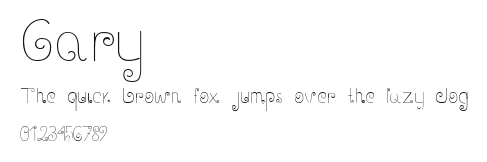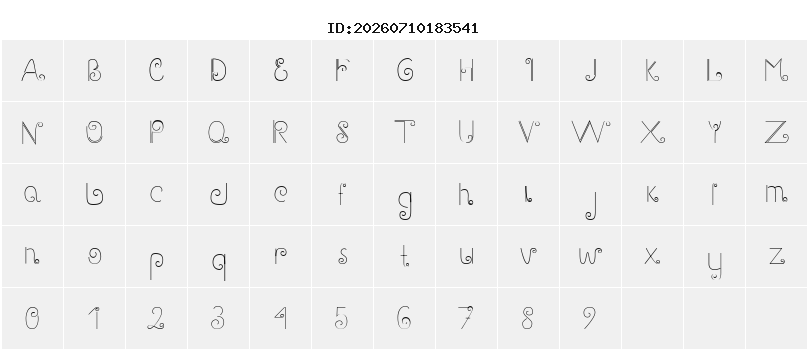
Gary Preview
• Font Name: Gary
• Font ID: PH,SibeleeLorena: Gary: 2014
• Full Font Name: Gary
• PostScript Name: Gary
• Character Count: 73
• Designer: Rapahel Carmo, Sibele Castro, Lorena Raíssa e Eduardo Novais
• Manufacturer: PH, Sibele e Lorena
About Gary.ttf
Gary.ttf is a modern, elegant sans-serif font designed for ultimate readability and visual harmony. Perfect for branding, headlines, web design, and print materials.